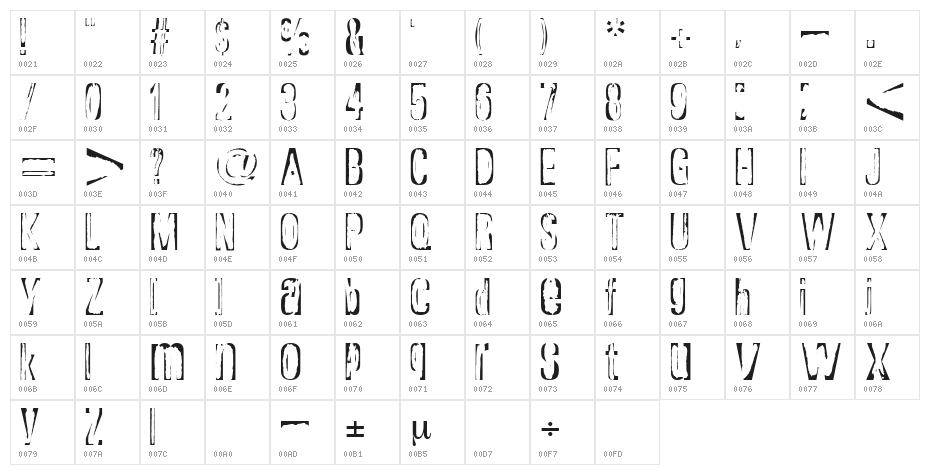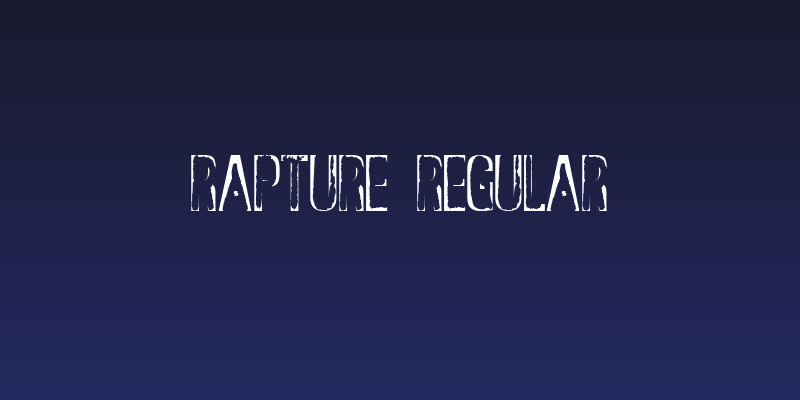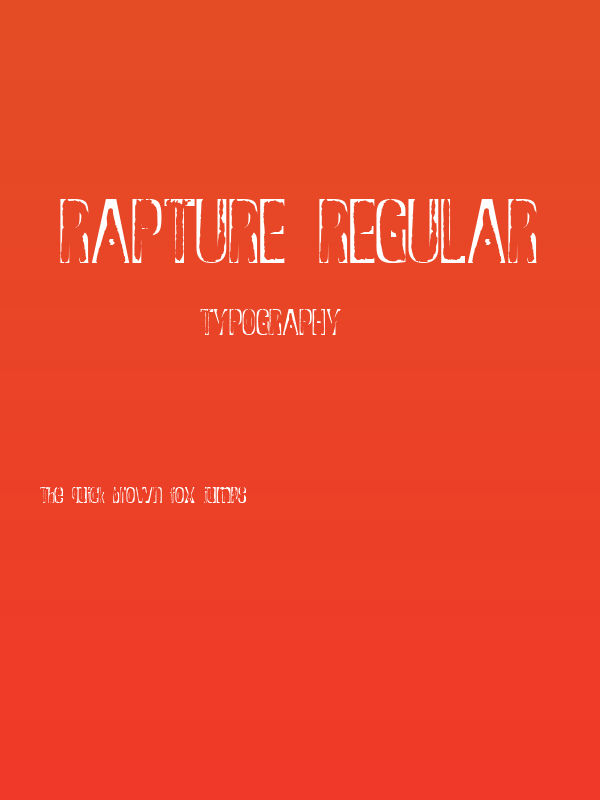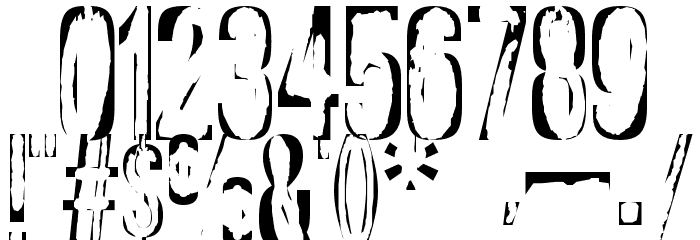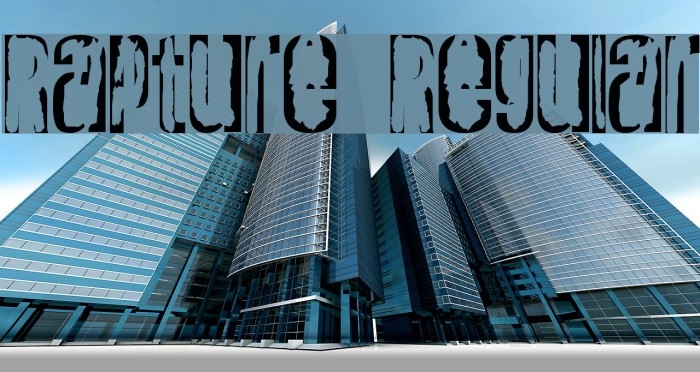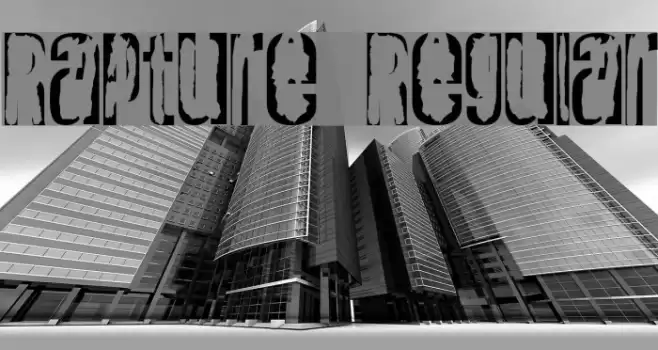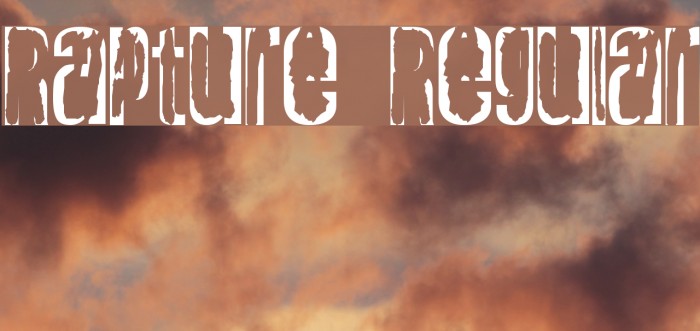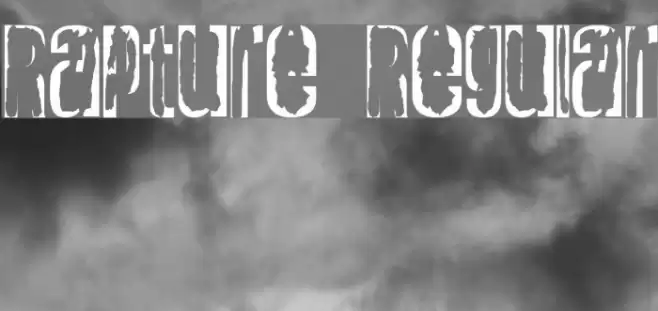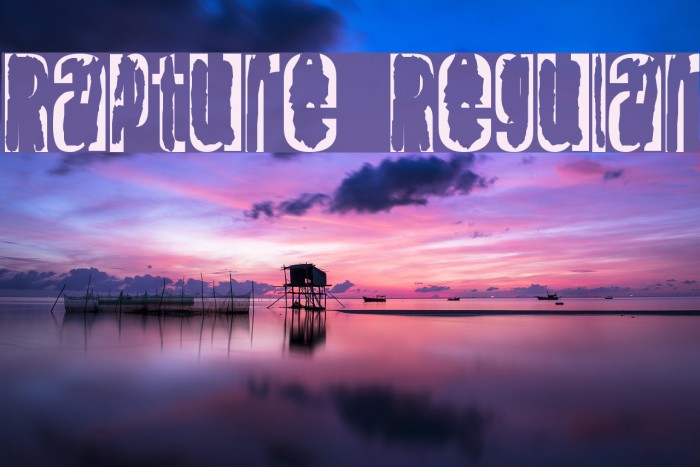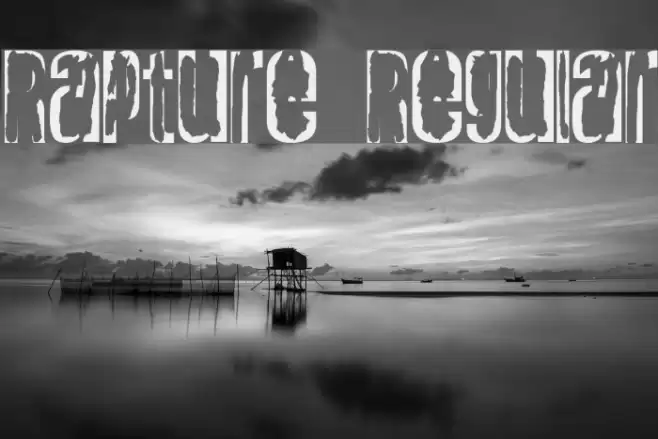
Rapture Regular Font
Rapture Regular Description
This font features a distressed, grunge style with a bold and impactful presence. The characters are heavily textured, giving them a worn and rugged appearance. The uppercase and lowercase letters maintain a consistent height, while the numbers and special characters follow the same distressed aesthetic. The font's unique style makes it stand out, with each character appearing as if it has been weathered over time, adding a sense of history and character.
| Overall Style | Vintage |
| Proposed Projects | Ideal for projects requiring a vintage or rugged look, such as album covers, posters, or branding for outdoor or adventure-themed products. |